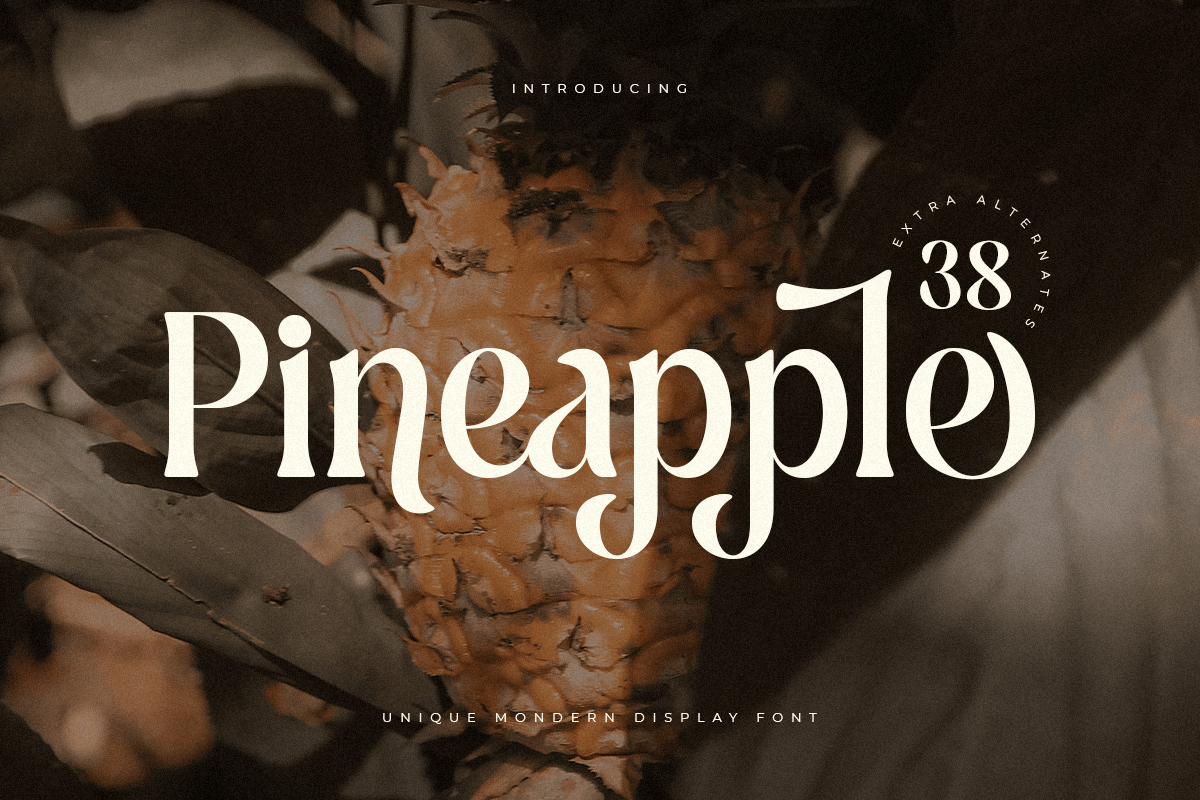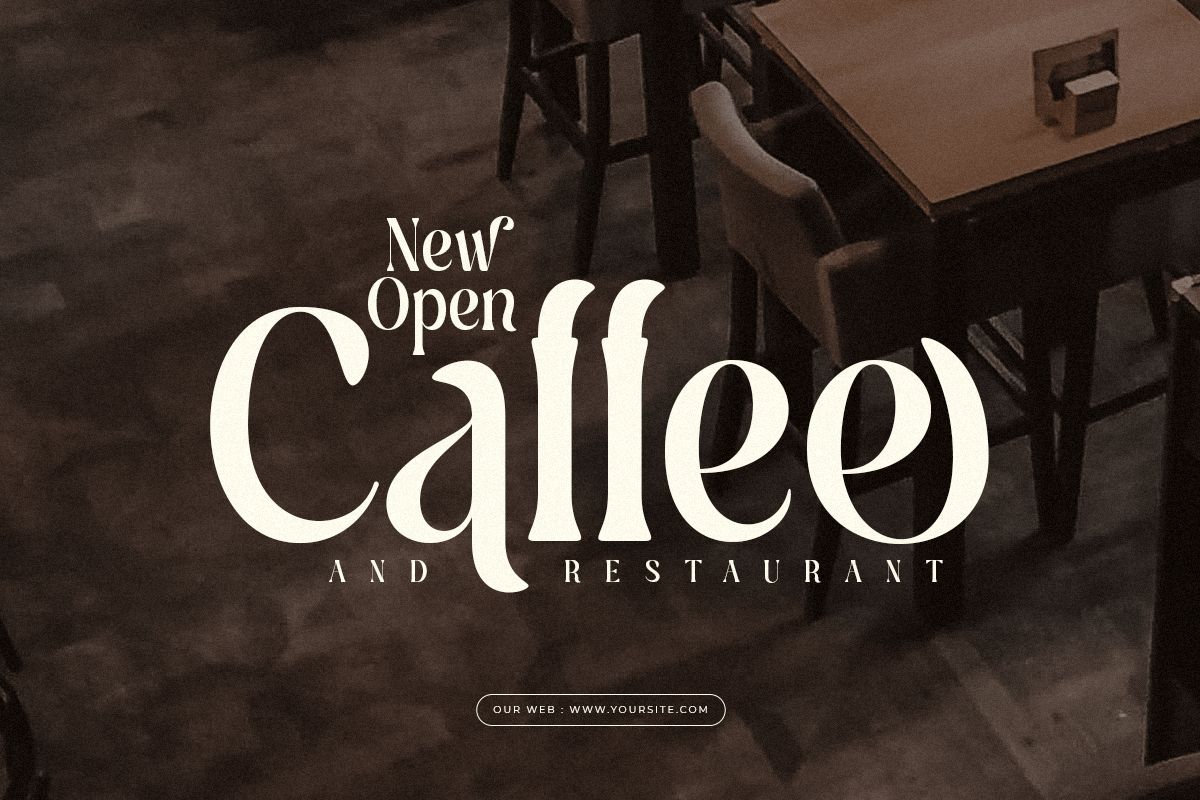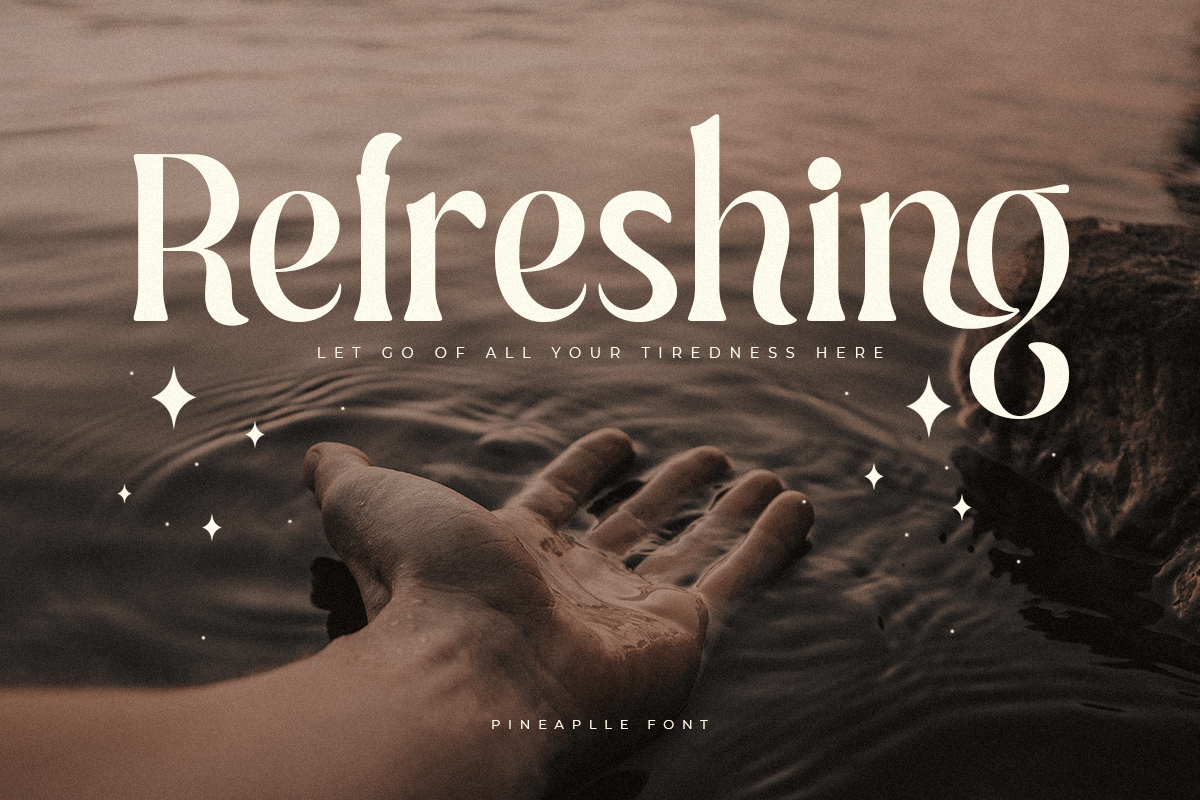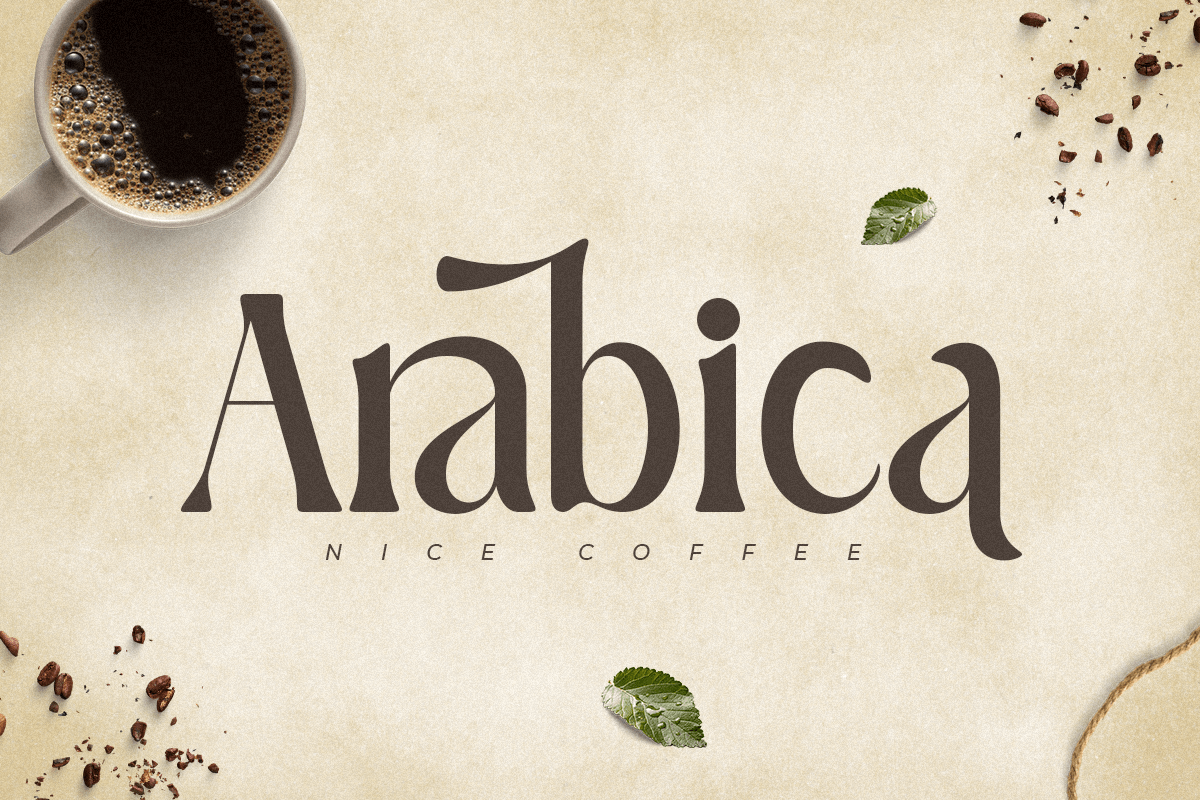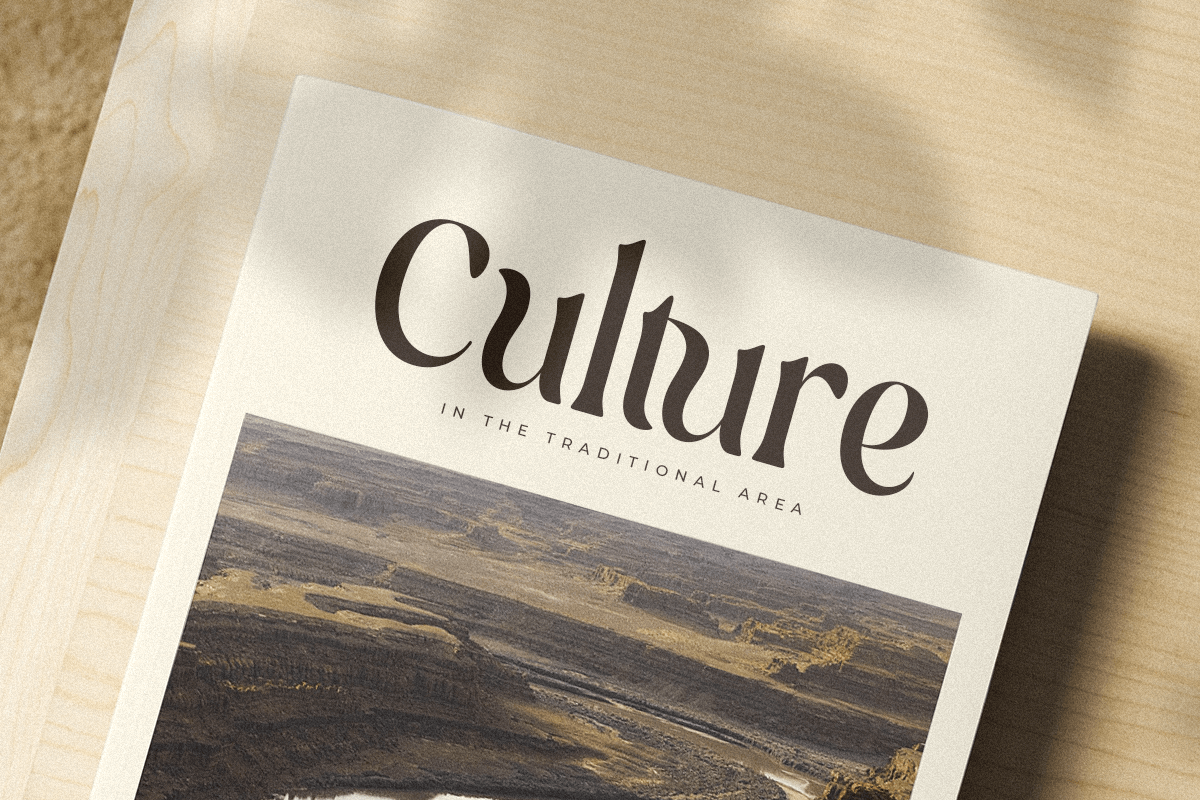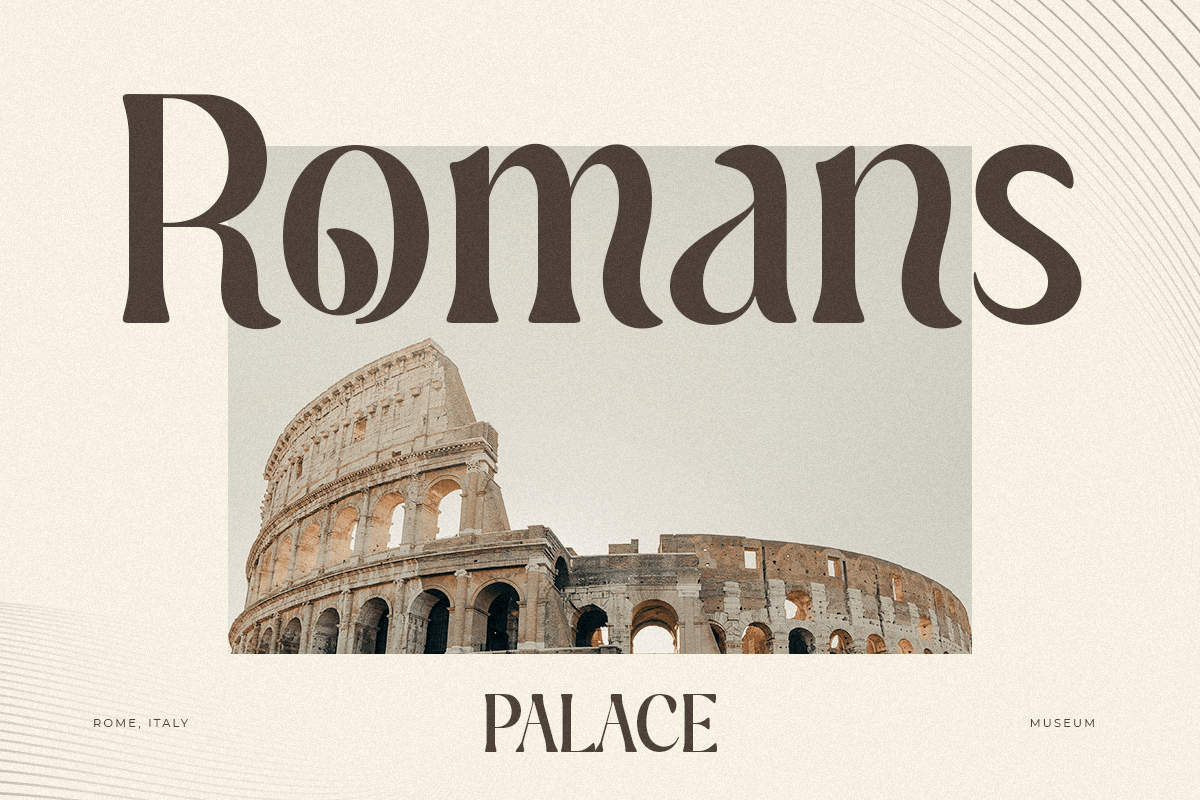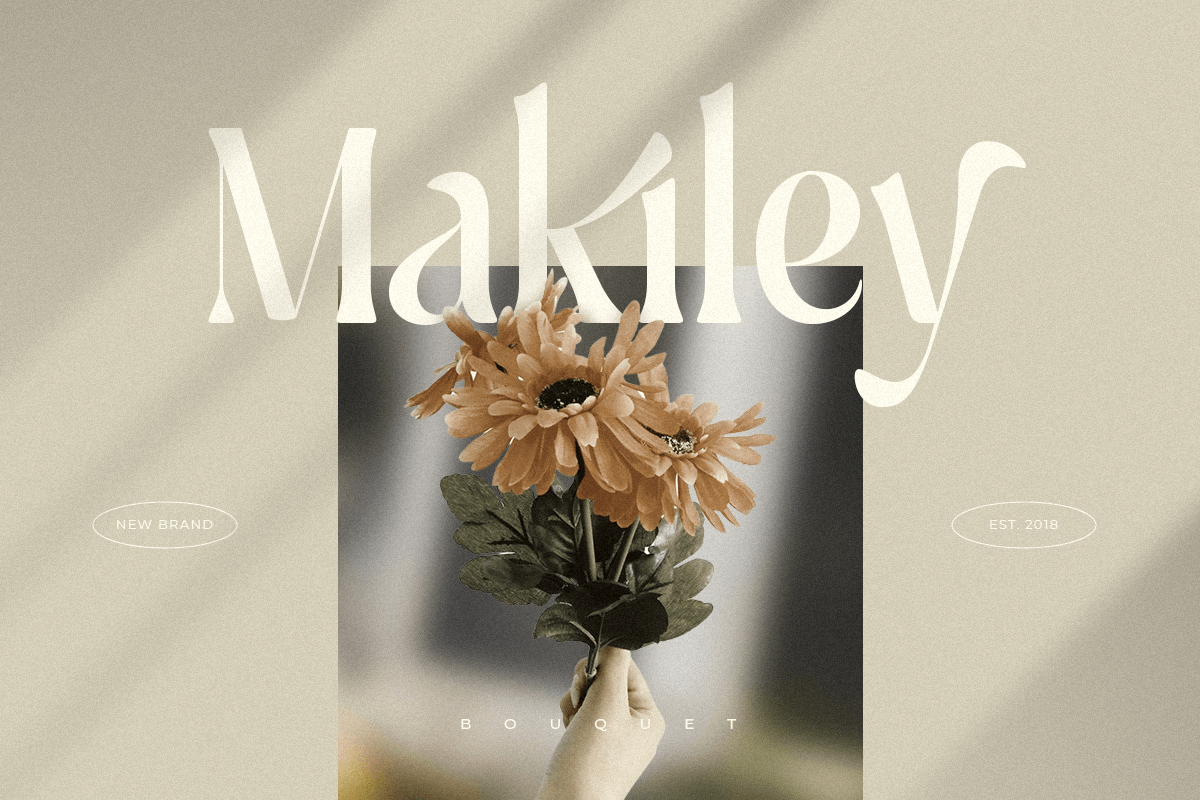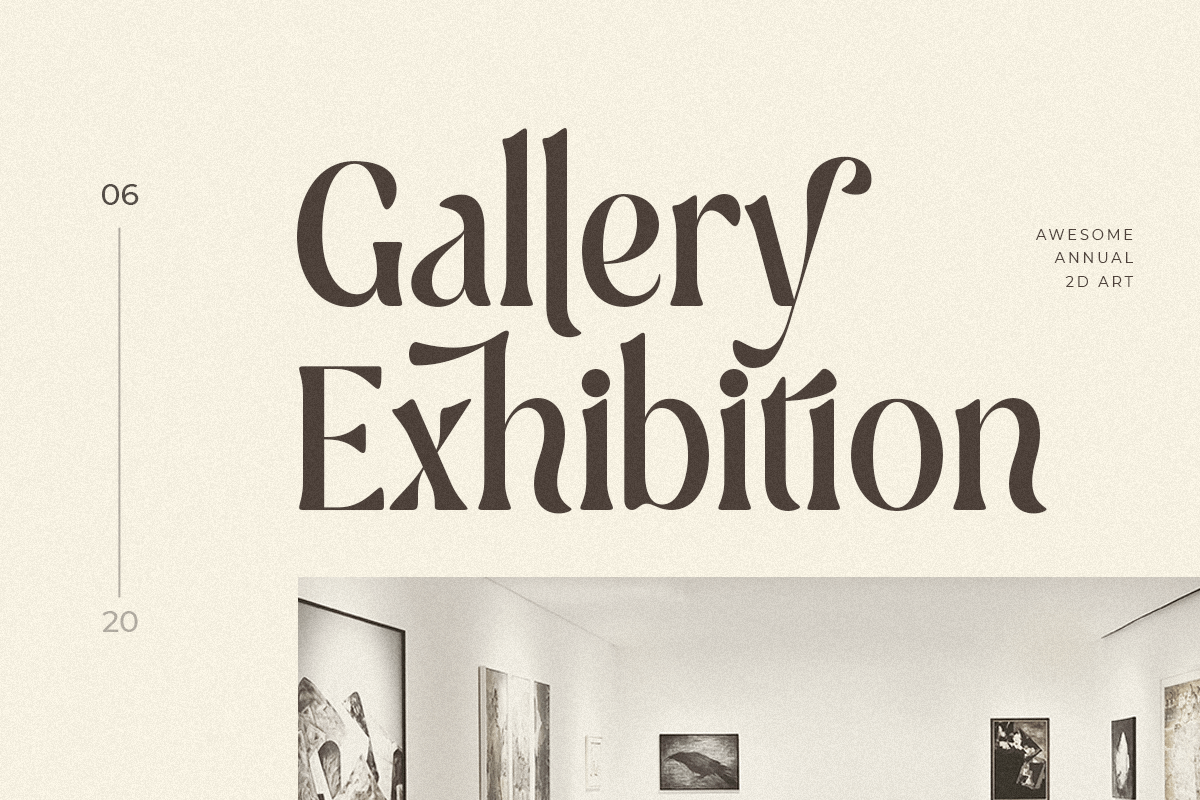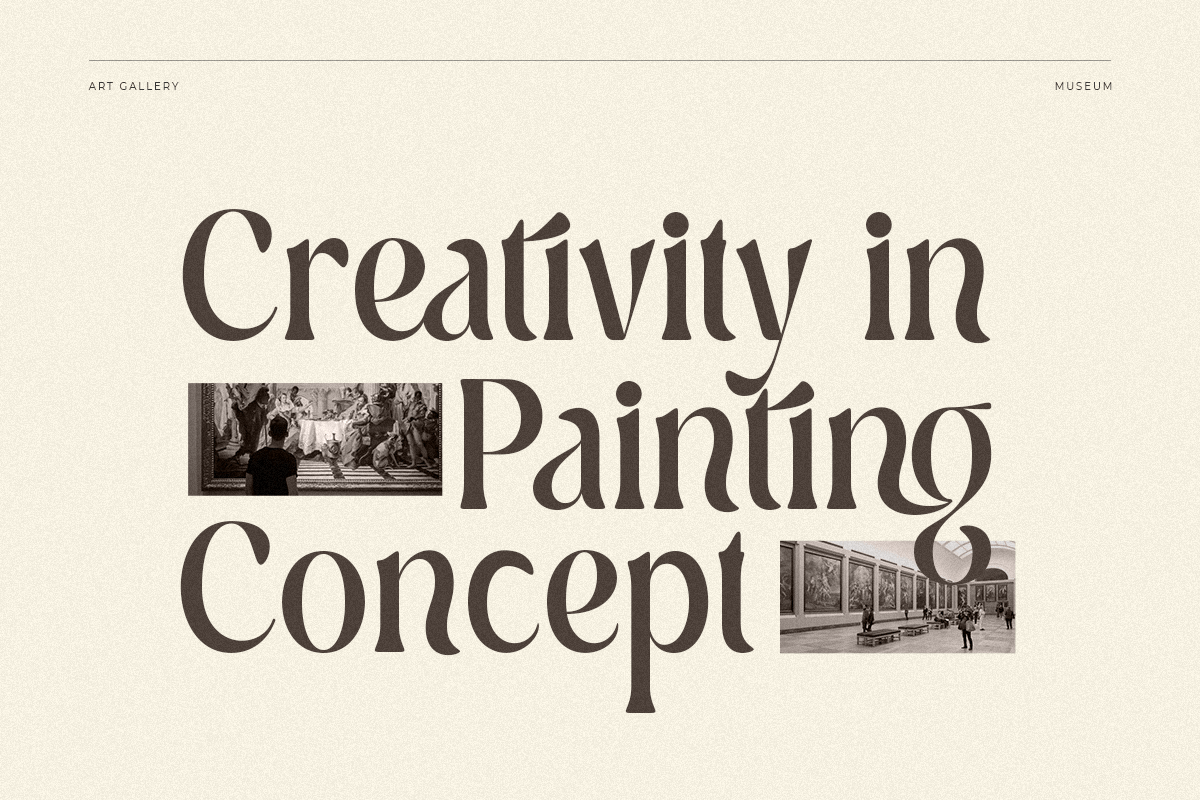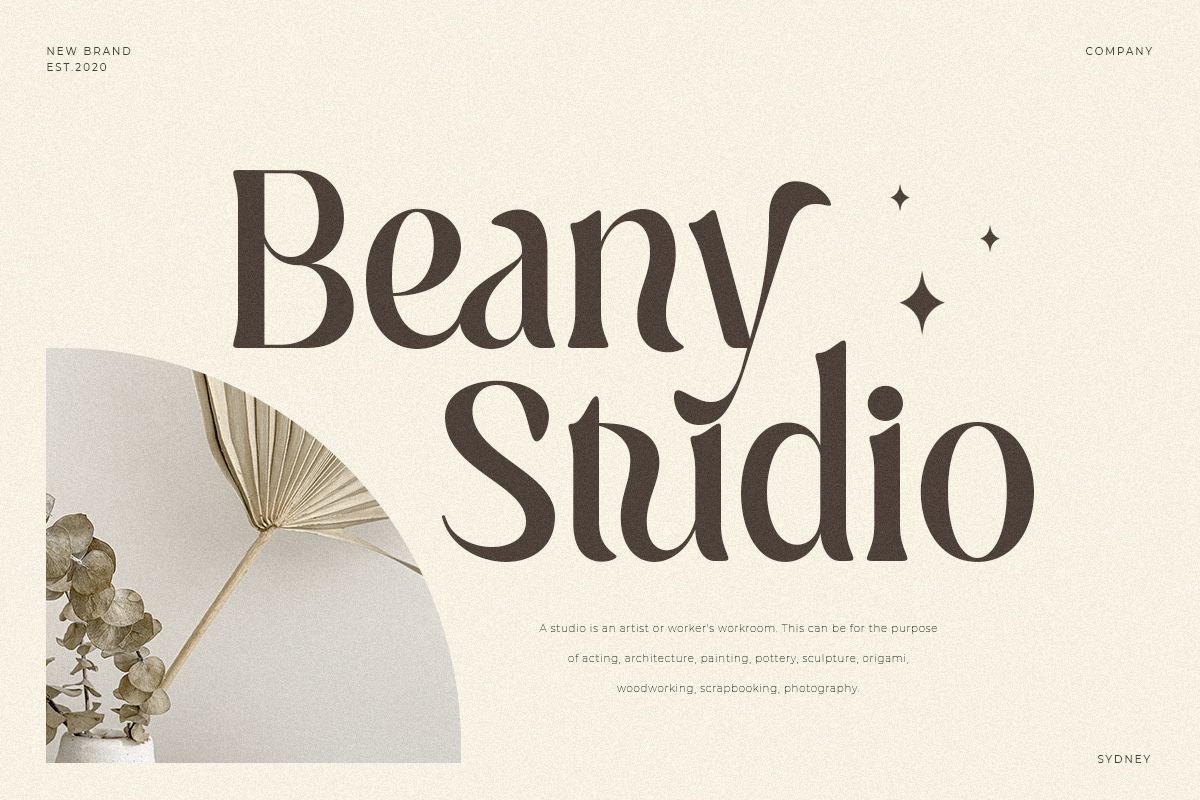
Pineapple
Pineapple is an Unique Retro Vintage Display font for Retro, Vintage, Cinematic, and Premium branding needs, font that you can combine to get any variations and unique shapes easily just in seconds with choose alternates and ligatures of them. It is a serif display font with moderate contrast that perfect for cinematic, premium projects, logo, wedding designs, social media posts, advertisements, product packaging, product designs, label, photography, watermark, invitation, stationery, and any projects, it makes with a high level of legibility.